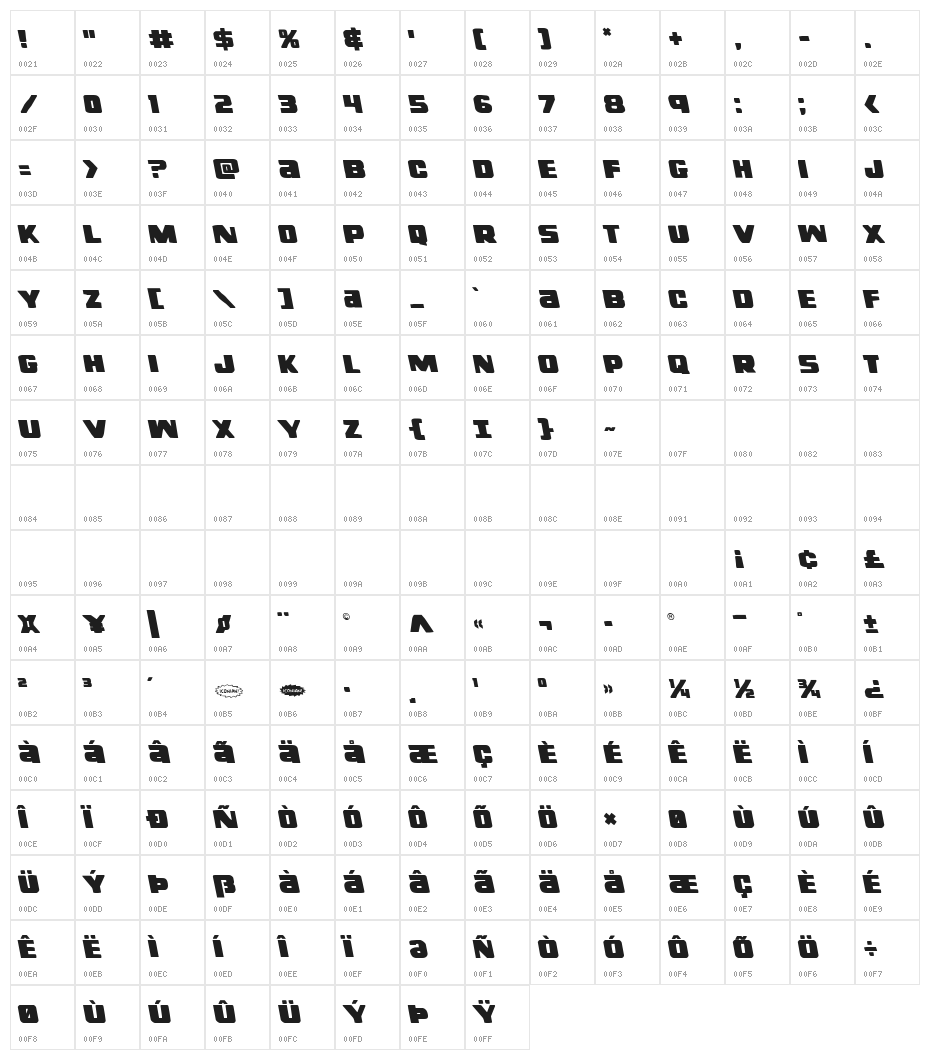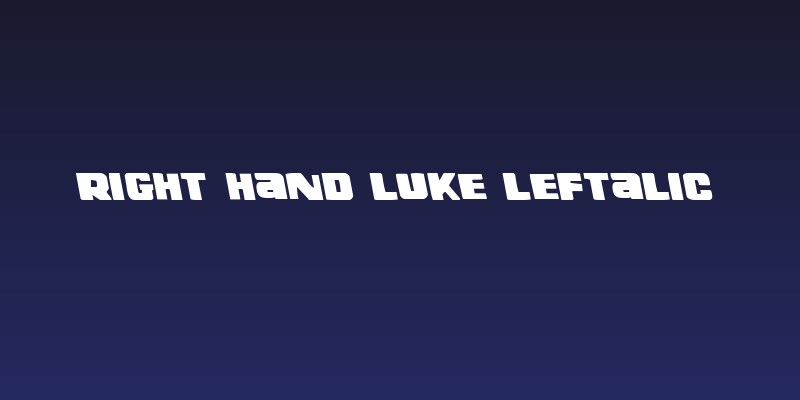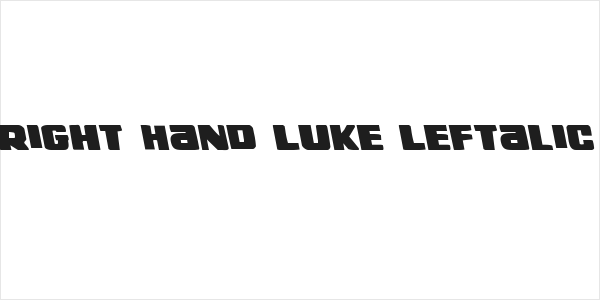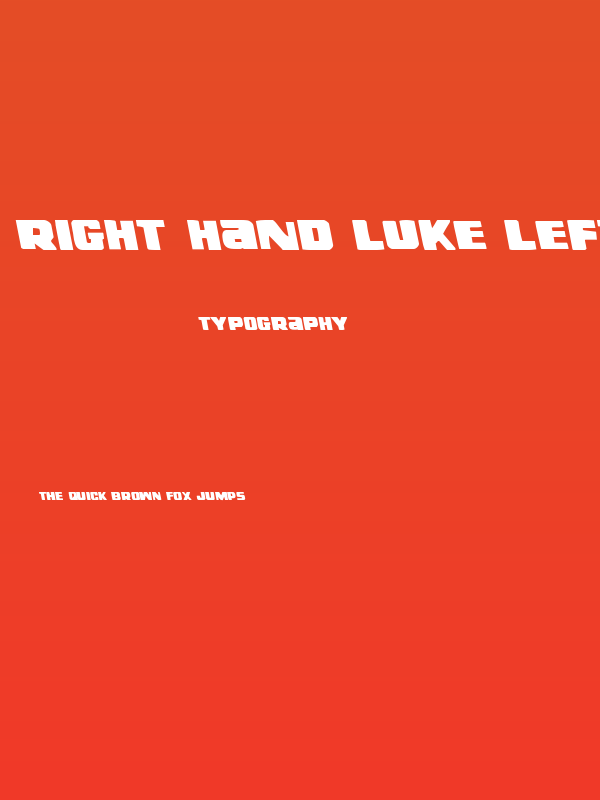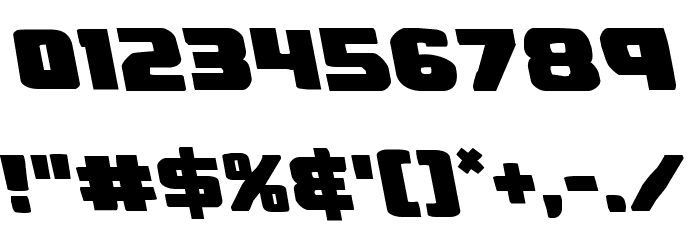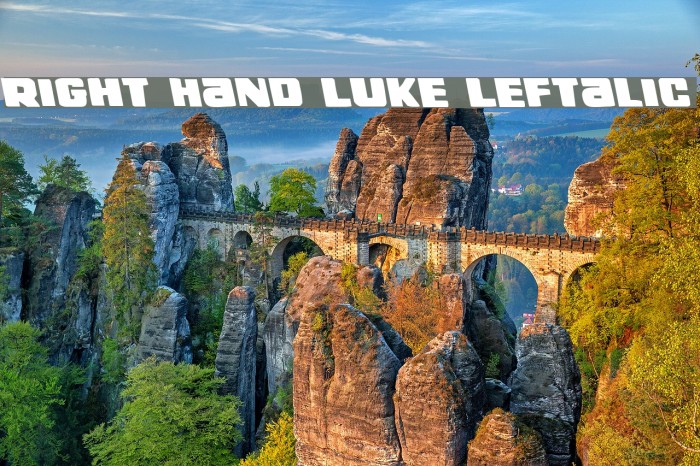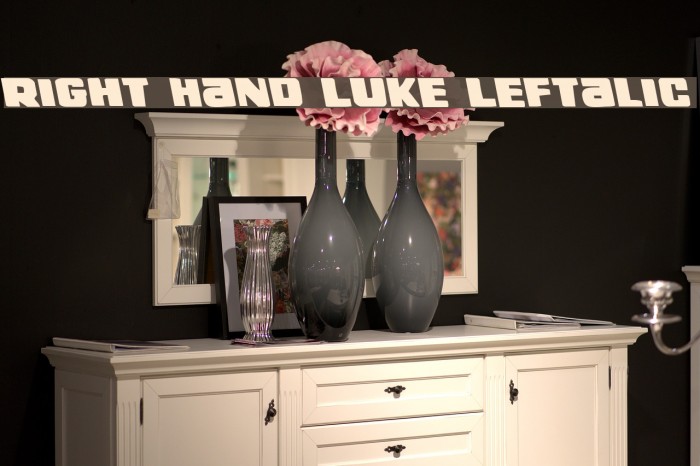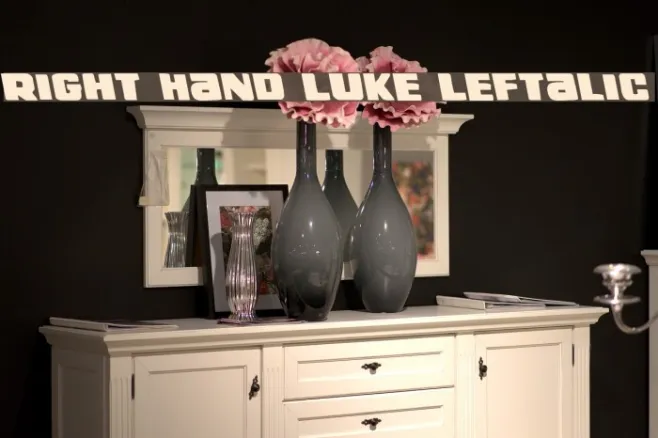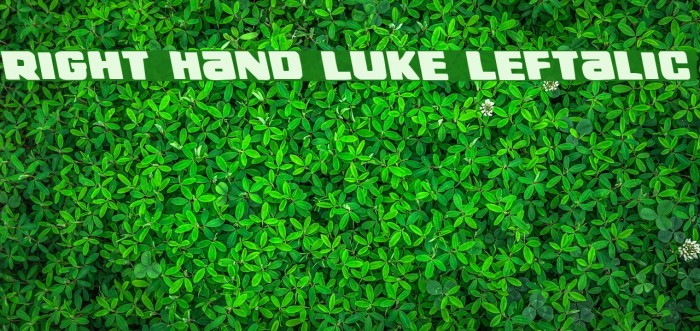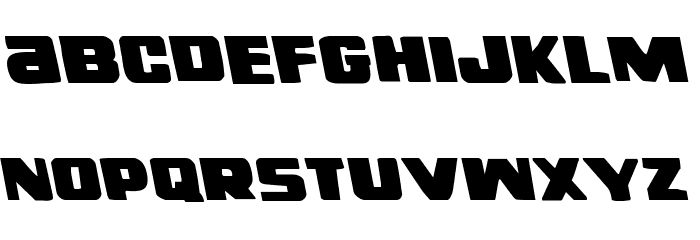
Right Hand Luke Leftalic Font
Right Hand Luke Leftalic Description
This font features bold, angular characters with a distinct slant, giving it a dynamic and energetic appearance. The uppercase and lowercase letters maintain a consistent weight, contributing to a strong visual impact. The numbers and special characters follow the same bold style, ensuring uniformity across all elements. The overall design is modern and slightly aggressive, making it suitable for attention-grabbing headlines or branding materials. The characters are tightly spaced, enhancing the compact and robust feel of the font.
| Proposed Projects | Ideal for sports branding, dynamic headlines, posters, and modern logos. |